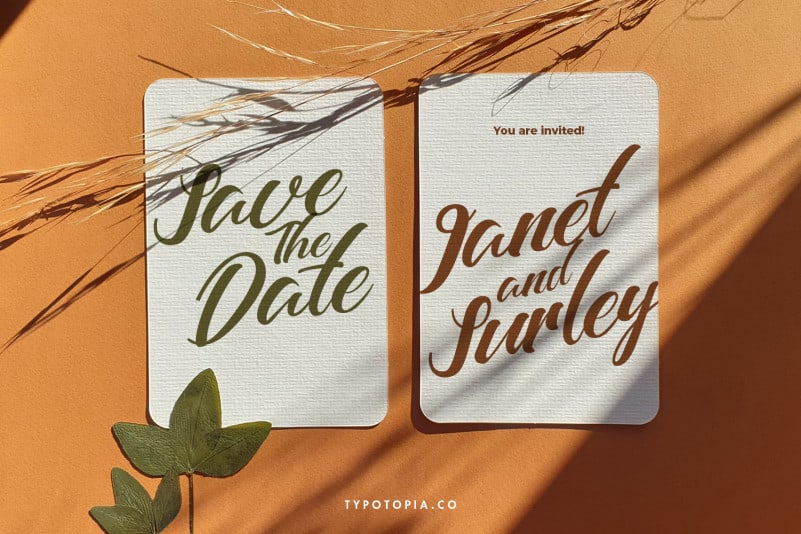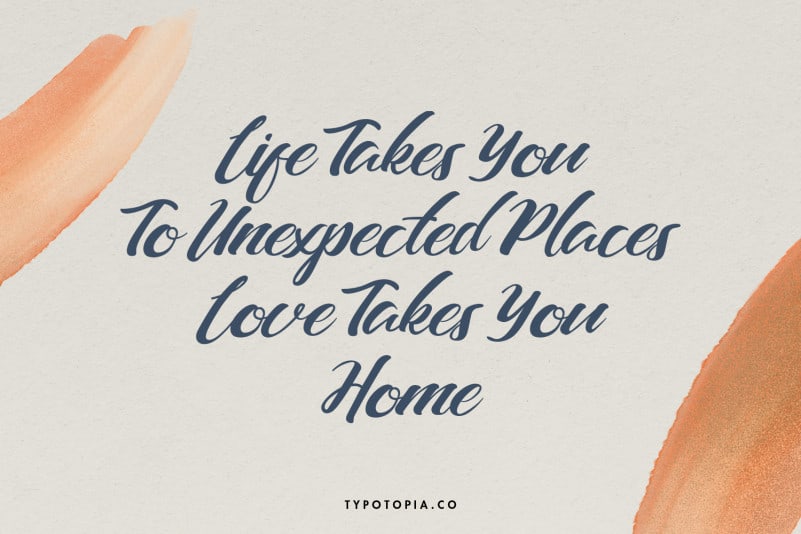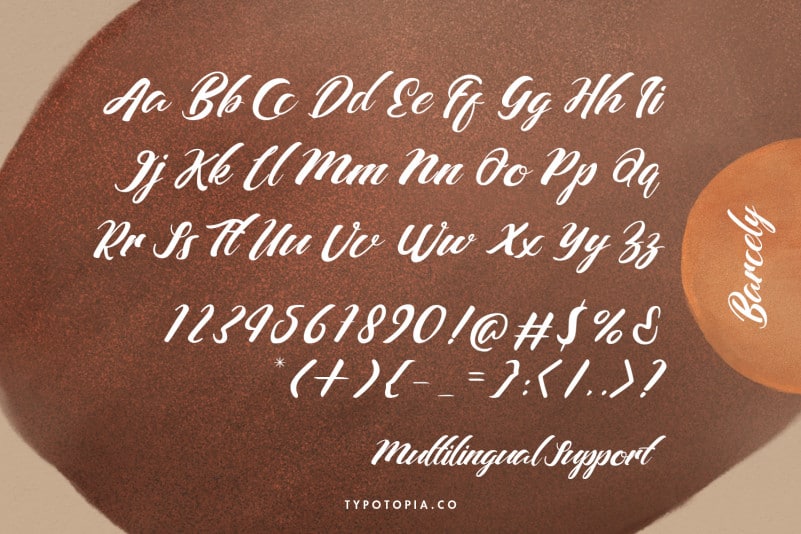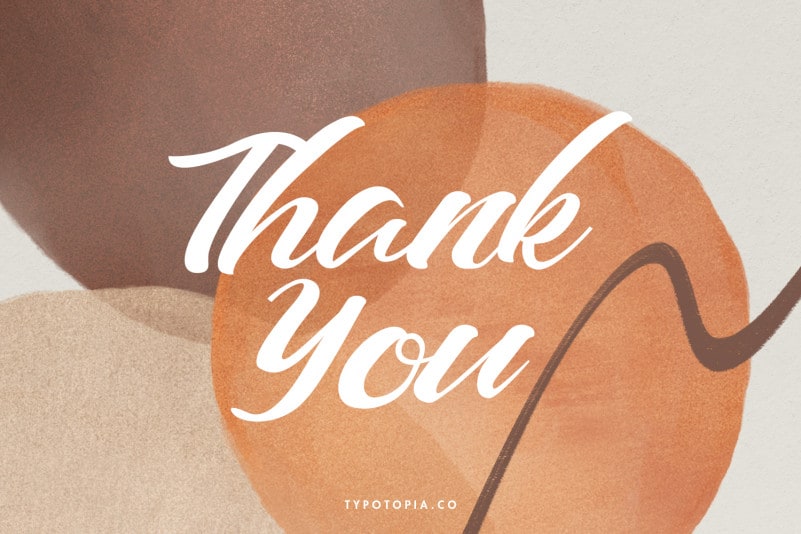
Barcely Fancy Script Font
Introducing Barcely Script Font is a beautiful and unique modern calligraphy script Fonts. This type of font perfectly made to be applied especially for logos, fashion, stationery, magazines, menus, books, invitations, greeting cards, packaging, labels, apparel, marketing, business cards, etc